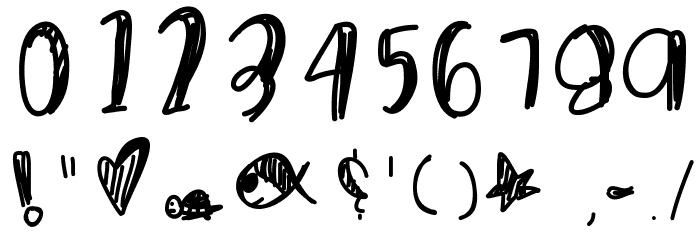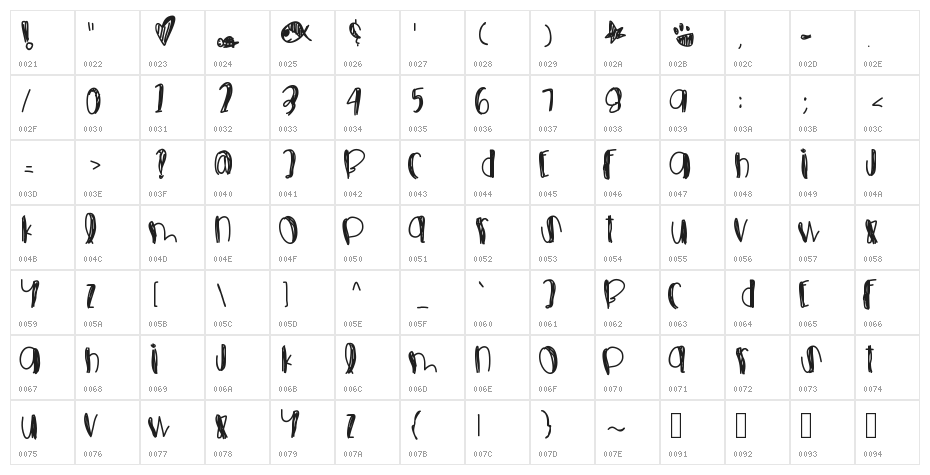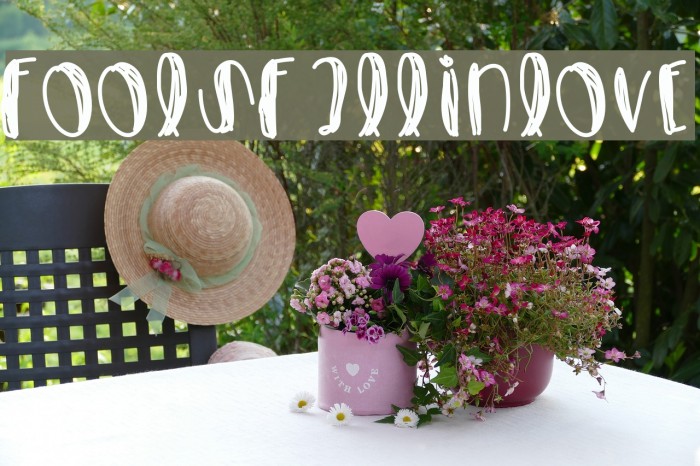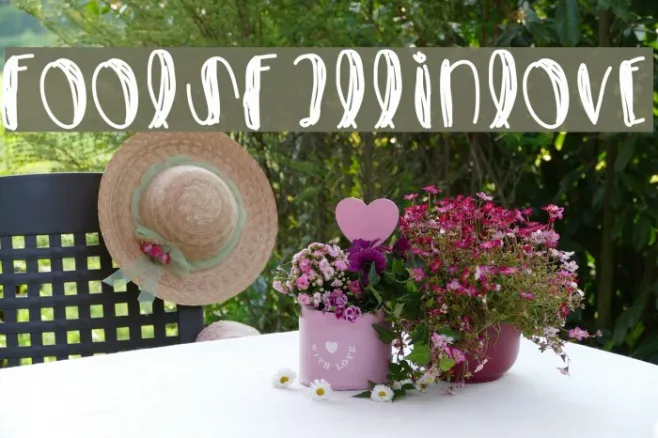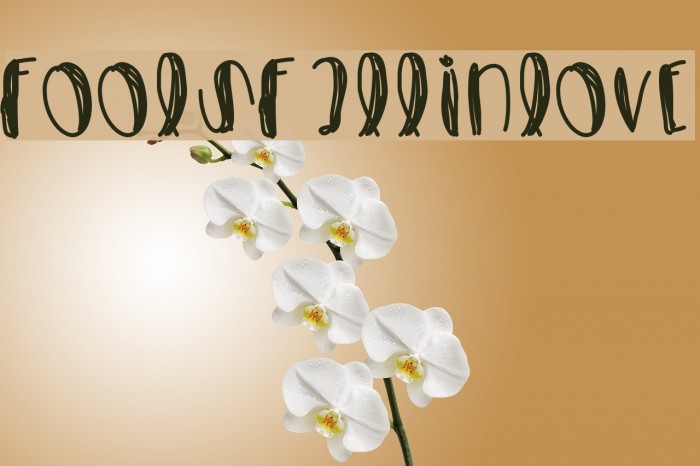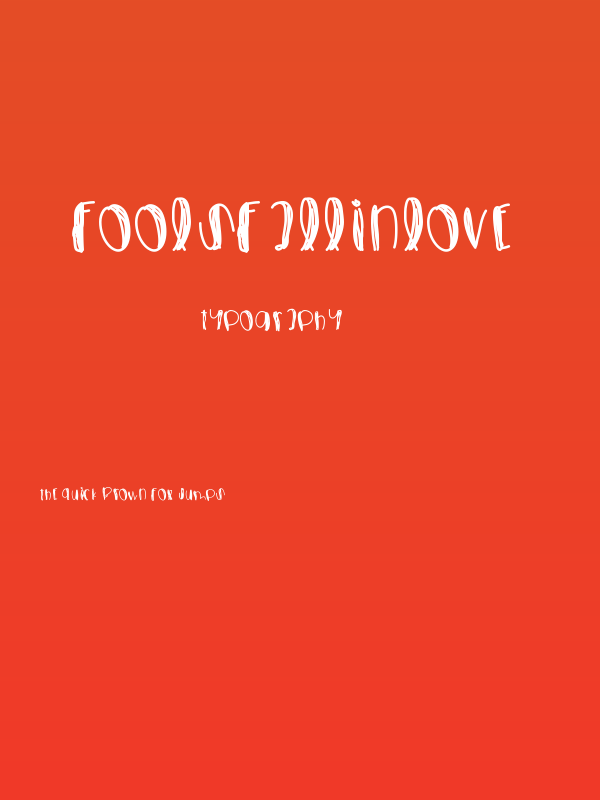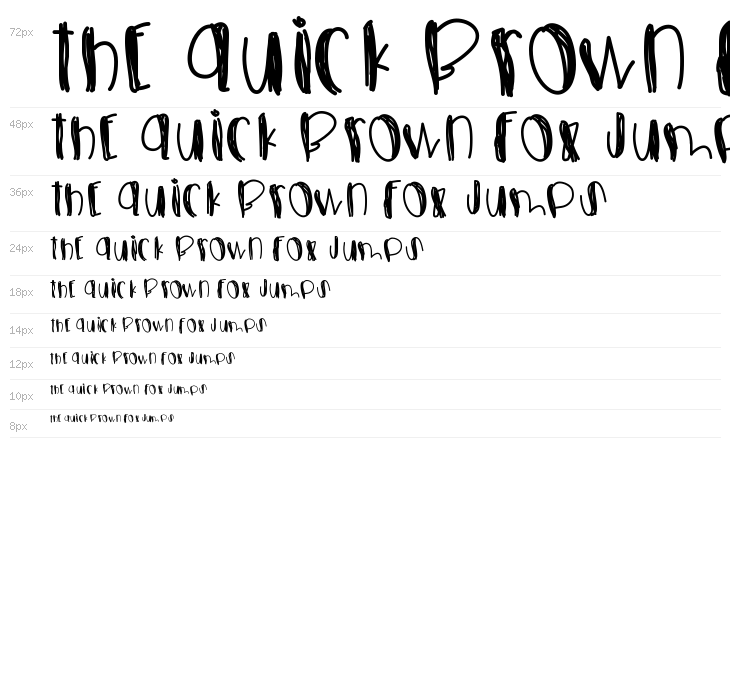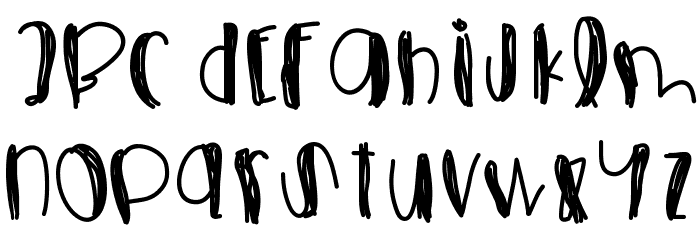
FoolsFallInLove Font
FoolsFallInLove Description
This playful and whimsical font features a handwritten style with a casual and artistic flair. Each character is uniquely crafted with irregular strokes, giving it a dynamic and lively appearance. The letters are slightly slanted, adding to the informal and relaxed vibe. The uppercase and lowercase letters maintain a consistent style, while the numbers and special characters are creatively designed to match the overall aesthetic. This font exudes a sense of fun and creativity, making it perfect for projects that aim to convey a lighthearted and approachable tone.
| Proposed Projects | Ideal for greeting cards, children's books, playful branding, and creative posters. |